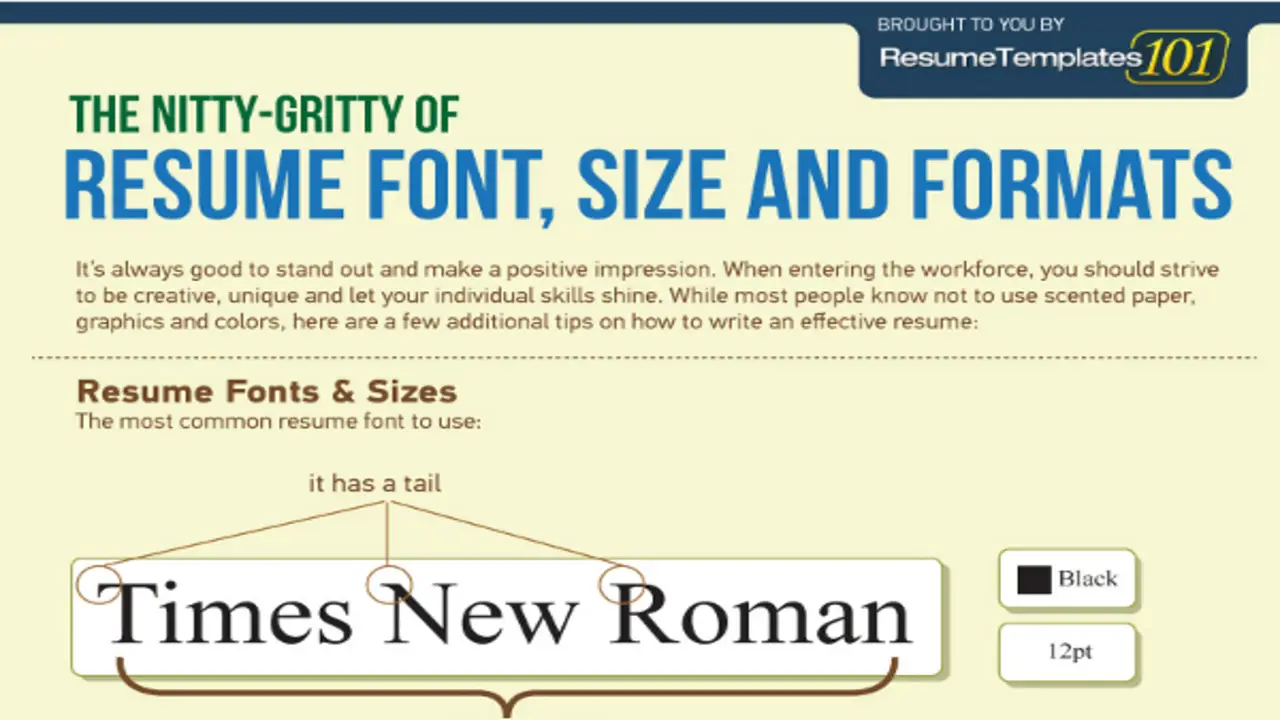
In today’s competitive job market, making your resume stand out is essential. One way to do this is through the use of fonts. While the content of your resume is crucial, the font you choose can also significantly impact how potential employers perceive your resume.
A font that is difficult to read or too small can turn off recruiters and cause them to overlook your qualifications. Therefore, choosing the best font size for your resume is important to ensure your application receives the attention it deserves.
We’ll discuss the best font size for resume 2018. However, we’ll provide you with the latest trends in font sizes and explain why choosing the right size for your resume is important. We’ll also provide tips on fonts to use and avoid. And how to make your resume visually appealing without sacrificing readability.
Importance Of Font Size On Resume
One of the most important factors to consider is the font size. Choosing the right font size can significantly affect how potential employers perceive your resume.
A font size that is too small can make your resume difficult to read, while a font size that is too large can make it look unprofessional and overwhelming. Typically, a font size of 10-12 points is recommended for the resume’s body, with headings and section titles slightly larger at 14-16 points. This ensures that your resume is easy to read and visually appealing. Additionally, consistent font sizes throughout your resume can improve its coherence and flow.
It’s essential to remember that employers often receive hundreds of resumes for a single job opening. So making your resume visually appealing and easy to read can significantly increase your chances of getting noticed.
5 Recommended Best Font Size For Resume 2018
In today’s competitive job market, having a standout resume is crucial. People often overlook the font size used in the document. Choosing the right font size can significantly impact how potential employers receive your resume. The latest trends recommend the five best font sizes for Resume 2018.
1. Garamond
Garamond is a classic serif typeface that originated in the 16th century and has remained a timeless choice in the world of typography. Designed by Claude Garamond, a renowned French type designer, it embodies elegance, sophistication, and clarity.
Garamond’s letterforms feature delicate, thin strokes with distinctive series, resulting in a harmonious and balanced appearance. The designer carefully crafted its proportions, creating balance and readability.
Garamond is often associated with traditional and scholarly publications, as it lends a sense of authority and timelessness to printed materials. Its graceful curves and refined details make it a popular choice for books, magazines, and other printed media, where legibility and aesthetics are paramount.
Garamond’s enduring appeal is a testament to its enduring design principles and its ability to adapt to modern applications while preserving its historical charm seamlessly.
2. Times New Roman
People widely recognize and use Times New Roman, a popular typeface, in various forms of written communication.
Created by British typographer Stanley Morison in 1931, Times New Roman exudes a classic and timeless appeal. Its elegant and legible design makes it a preferred choice for printed materials such as books, newspapers, and academic documents. The font features a balanced and traditional structure, with medium stroke contrast and distinctive serifs that enhance readability.
With its widespread availability on most computer systems, Times New Roman has become a default font for many individuals and organizations, lending a touch of professionalism to their written works.
3. Georgia
Georgia font, designed by Matthew Carter, is a popular and widely used serif typeface that brings elegance and readability to the world of typography. Named after the state in the United States, Georgia font is renowned for its clarity and legibility, making it an excellent choice for print and digital applications.
Its graceful letterforms and balanced proportions lend a sense of sophistication to any text, while it’s subtle serifs and generous spacing enhance readability, particularly in longer passages. Georgia font’s versatility and timeless appeal have made it a beloved choice for various purposes, from body text in books and magazines to web design and digital interfaces.
With its classic charm and reliable performance, Georgia font continues to be a favourite among designers and typographers worldwide.
4. Bell MT
Bell MT is a classic serif font that exudes elegance and sophistication.
Designed by American typographer Richard Austin in the 1930s, Bell MT is known for its timeless appeal and refined appearance. With its well-proportioned letterforms, distinct serifs, and subtle stroke variations, this font effortlessly balances tradition and modernity. Its graceful curves and clear legibility make it a popular choice for various applications, such as formal invitations, book titles, and corporate branding.
Ans: Using the same font size for the entire resume is unnecessary. You can use a larger font size for section headings and a smaller font size for body text.
4.What Is The Best Font Size For Section Headings?
Ans: The best font size for section headings is between 14 and 16 points. While they may seem visually appealing, these fonts can be difficult to read and incompatible with different software or platforms.
5.What Is The Best Font Size For Body Text?
Ans: The best font size for body text is between 10 and 12 points.